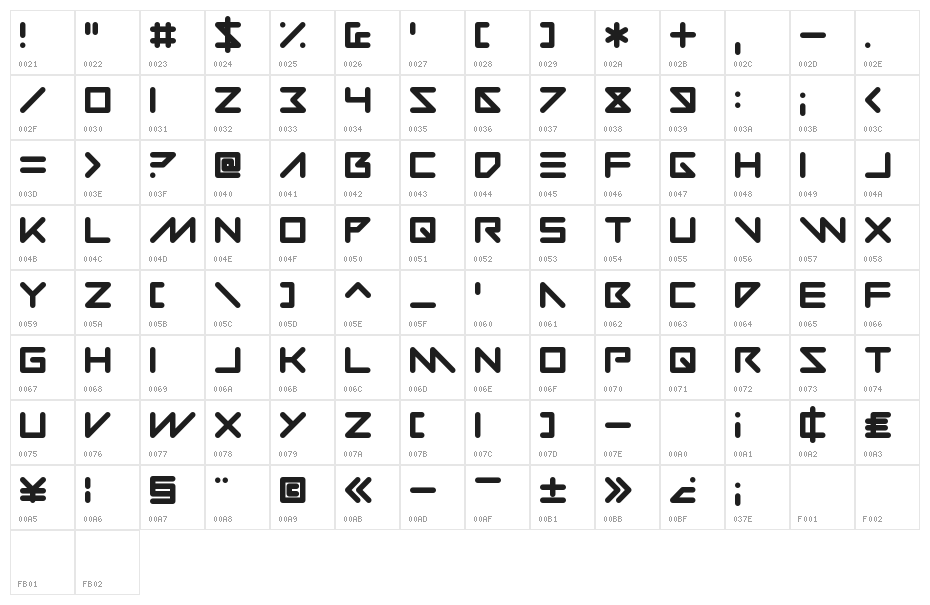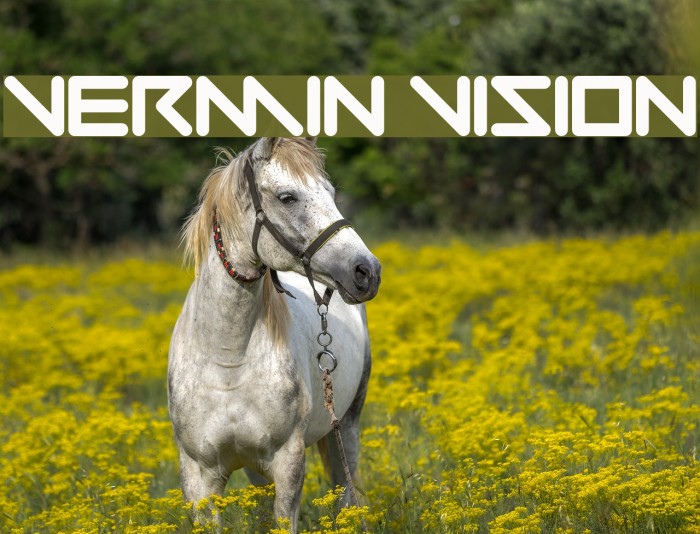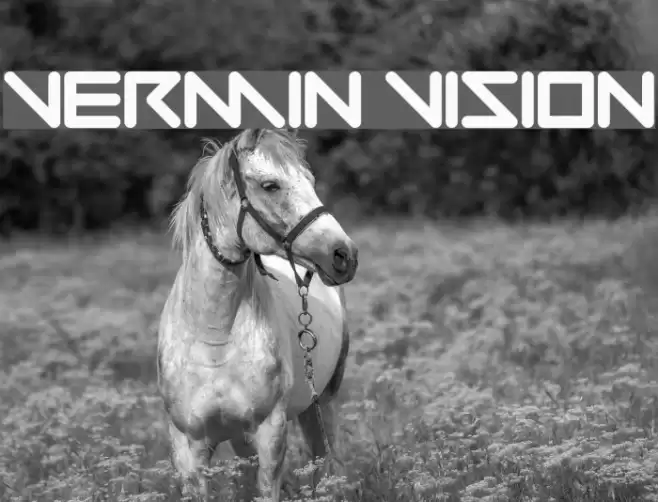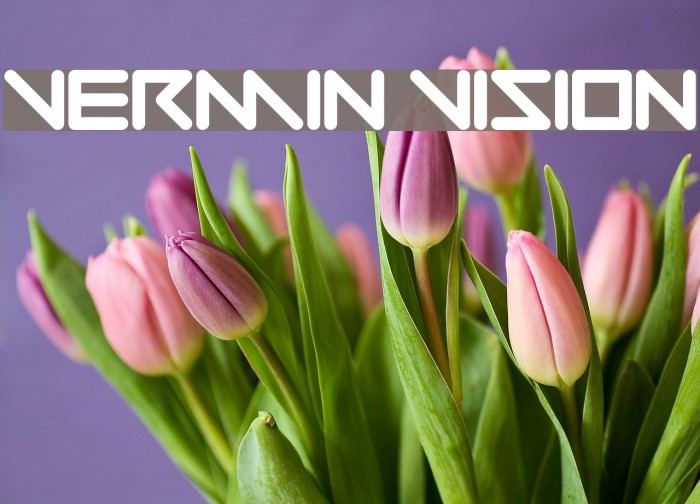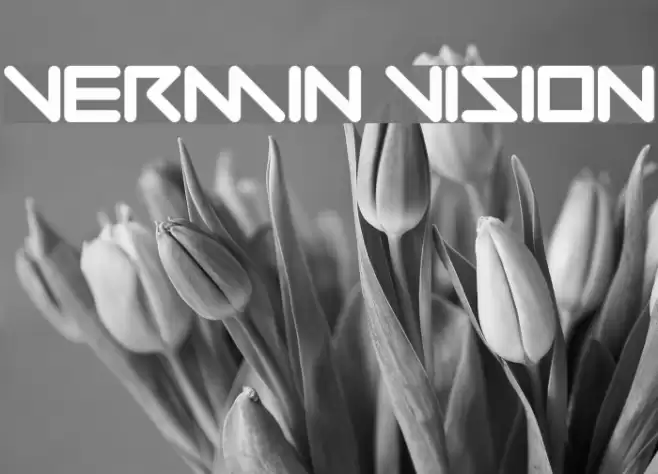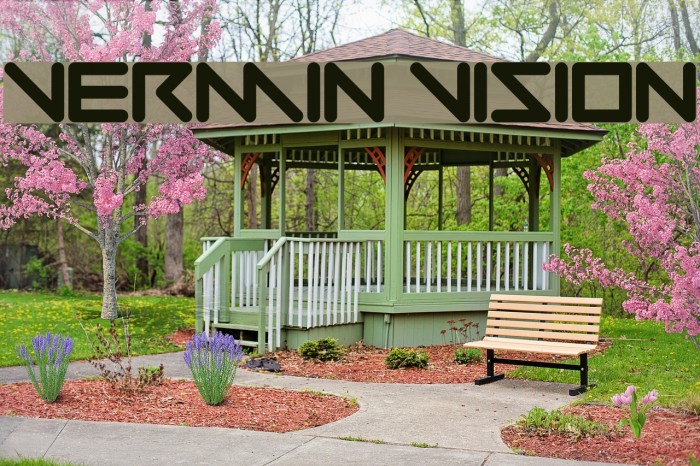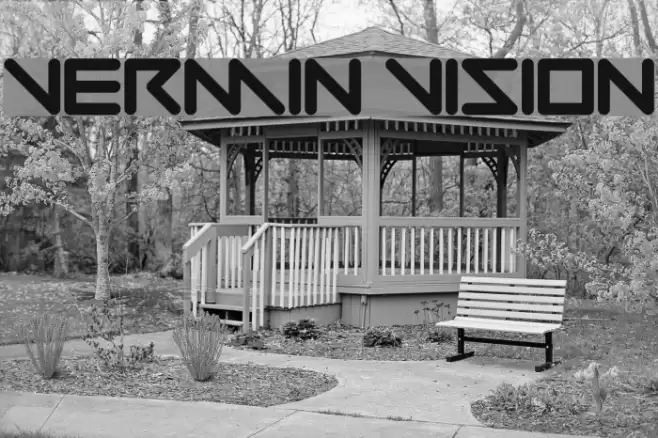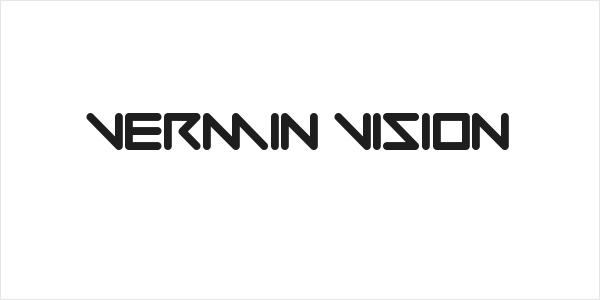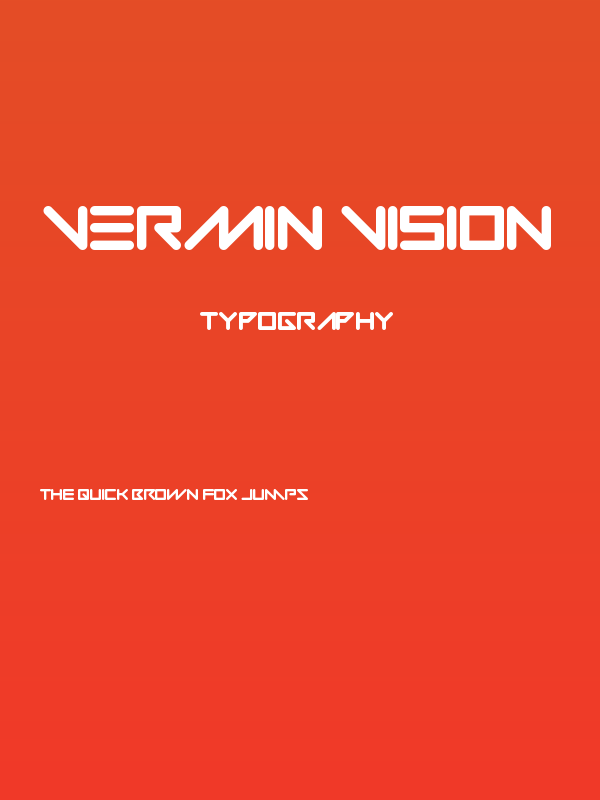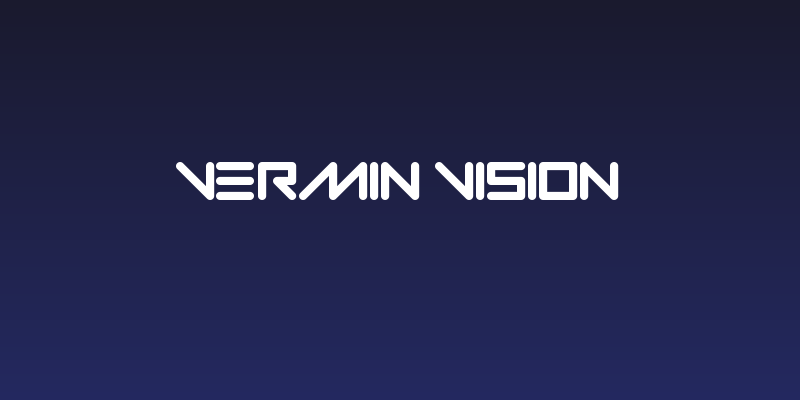
Vermin Vision Font
Vermin Vision Description
This font features a futuristic and geometric design, characterized by bold, rounded edges and a consistent stroke width. The letters are constructed with a modern aesthetic, incorporating sharp angles and a streamlined appearance. The uppercase and lowercase letters maintain a cohesive style, with a distinct emphasis on symmetry and balance. The numerals and special characters follow the same design principles, ensuring uniformity across all glyphs. This font's unique style makes it suitable for projects that require a contemporary and tech-inspired look.